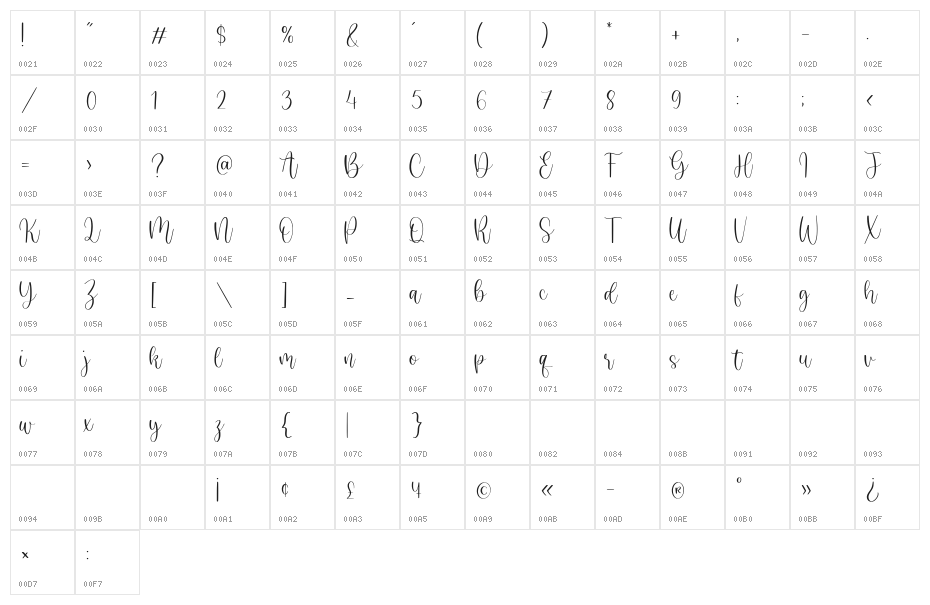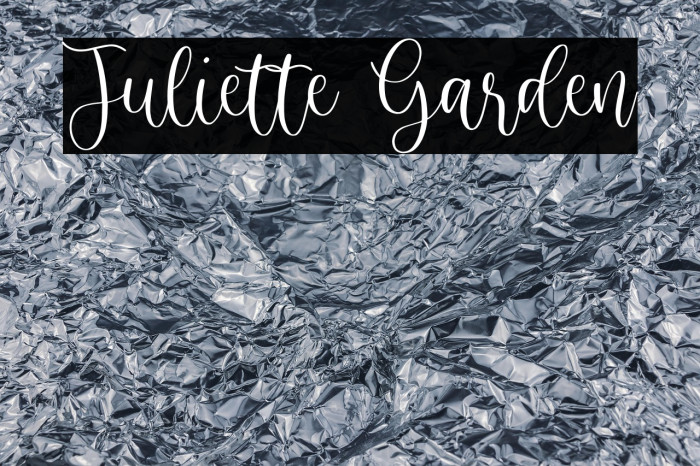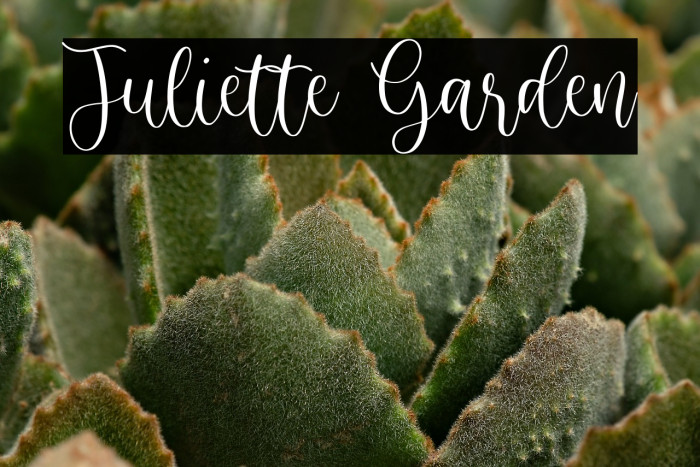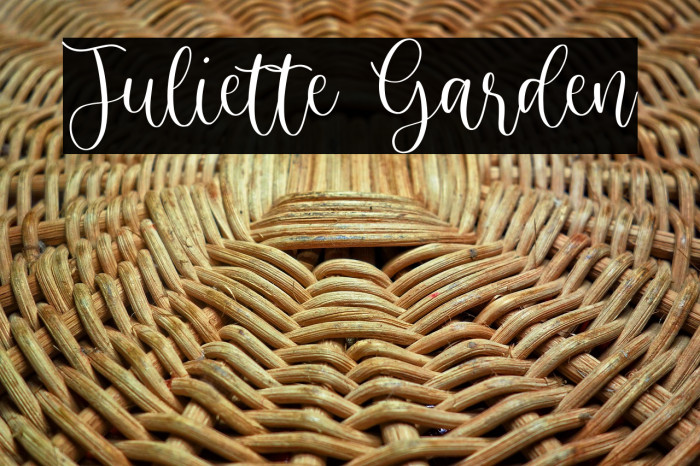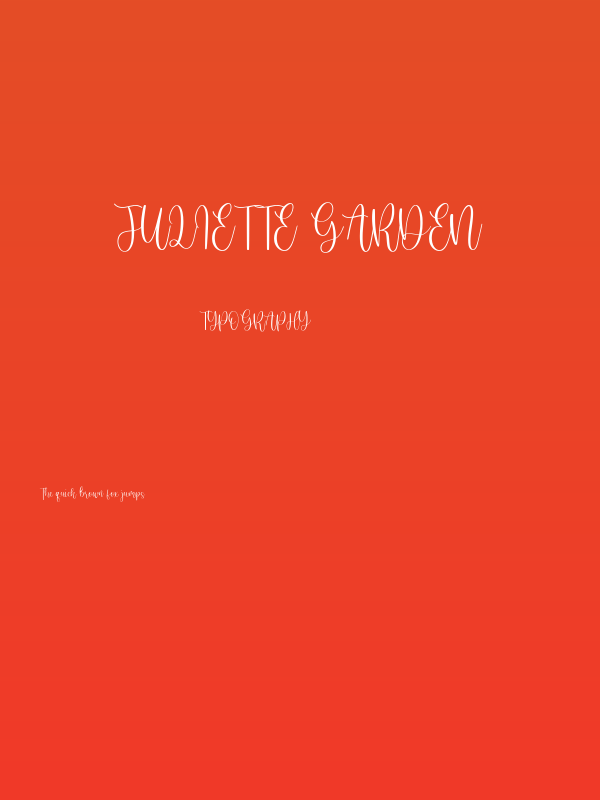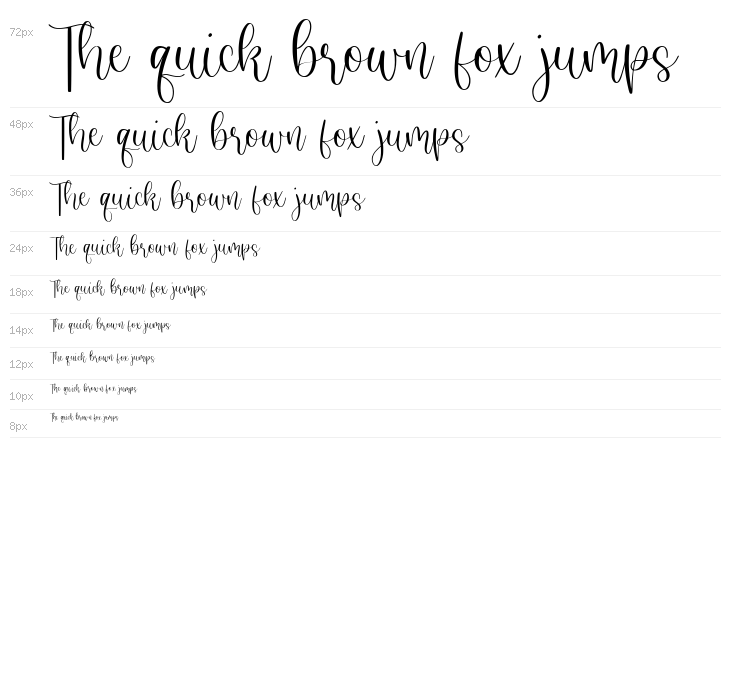
Juliette Garden Font
Juliette Garden Description
This font features an elegant, flowing script style that exudes a sense of sophistication and charm. The letters are intricately designed with smooth, curving lines and delicate loops, creating a graceful and fluid appearance. The uppercase characters are bold and prominent, while the lowercase letters maintain a consistent, harmonious flow. The numerals and special characters are crafted with the same attention to detail, ensuring a cohesive look throughout. This font is perfect for adding a touch of elegance and personality to any design project.
| Proposed Projects | Ideal for wedding invitations, greeting cards, branding, and elegant logo designs. |